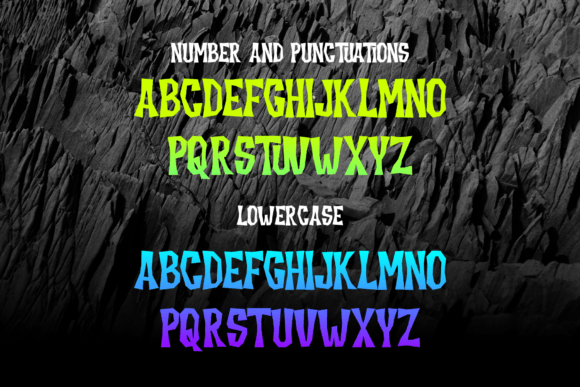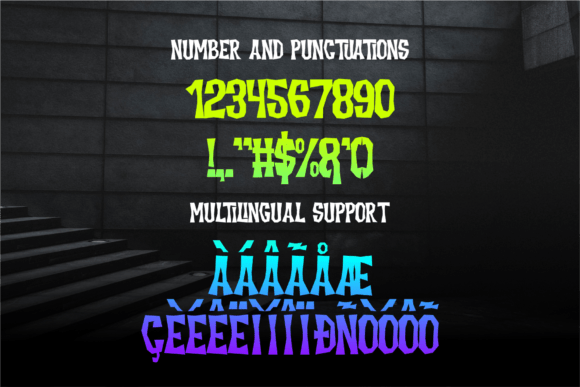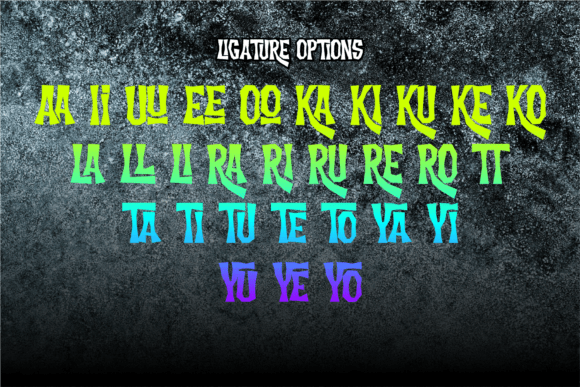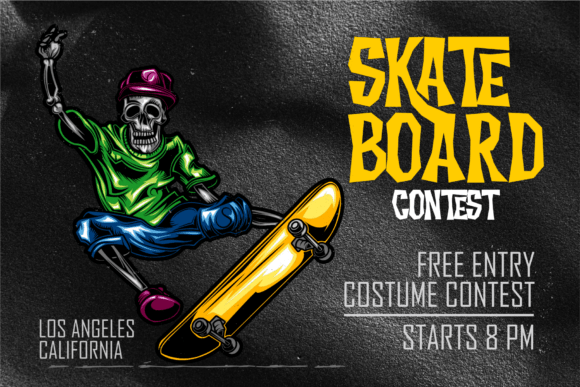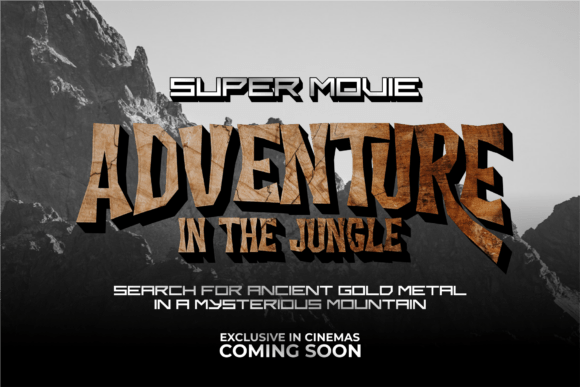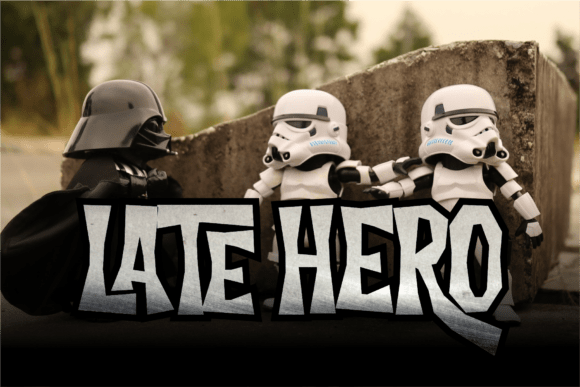
Unleash the Urban Edge with Deep Riots Font
Have you ever been in the midst of a design project, pouring your heart and soul into it, only to hit a creative roadblock because of one tiny thing: the font? I recall a particularly frustrating experience while working on a street-fashion campaign. My client wanted a bold, edgy typeface that screamed urban vibes, but everything I tried seemed to fall flat. That’s when I stumbled upon “Deep Riots”, a gutsy graffiti-style font that instantly sparked life into my design. If you’re a designer, crafter, or creative hobbyist looking for a font that embodies defiance and metropolitan charm, you’re in the right place!
A First Look at Deep Riots
“Deep Riots” is more than just a font; it’s an attitude, a statement, and a bold declaration of unrefined charm. This typeface is tailor-made for street-fashion, music-themed graphics, and city-centric creations. With its graffiti-inspired aesthetic, it brings an untamed, unique vibe to your work, making it eternally memorable.
What I Love About Deep Riots
- ✨ Urban Authenticity: It captures the raw, unpolished essence of urban graffiti, adding a genuine touch to your designs.
- ✅ Multilingual Support: Whether you’re working on a global campaign or targeting a specific linguistic audience, “Deep Riots” has got you covered.
- 🔥 High-Impact Visuals: It’s perfect for headlines, taglines, and any design element you want to make a bold statement with.
- 💡 Versatility: From fashion to music, and from digital graphics to print materials, this font adapts seamlessly.
While “Deep Riots” is a powerful font, there are a few things to keep in mind:
- ⚠️ Legibility at Small Sizes: Like many decorative fonts, it may lose legibility when used at very small sizes. It’s best used for headlines or larger text elements.
- 🤔 Pairing with Other Fonts: Due to its bold nature, it works best when paired with simpler, sans-serif fonts to maintain visual balance.
The Backstory of Deep Riots
“Deep Riots” was born out of a desire to capture the raw energy of urban graffiti. Its designer, inspired by the streets of major cities and the rebellious spirit of graffiti artists, aimed to create a typeface that could channel this defiance and creativity. The result is a font that not only looks bold but also tells a story of urban resilience and artistic expression.
| Is Deep Riots suitable for body text? | No, due to its decorative nature and potential legibility issues at small sizes, it’s best used for headlines and short text elements. |
“Deep Riots” is more than just a font; it’s a gateway to creating designs that speak with an urban, edgy voice. Whether you’re working on a street-fashion campaign, a music album cover, or any project that demands a bold statement, this graffiti-style font is sure to leave a lasting impression. So, unleash your creativity, embrace the unrefined charm, and let “Deep Riots” make your message loud and clear.